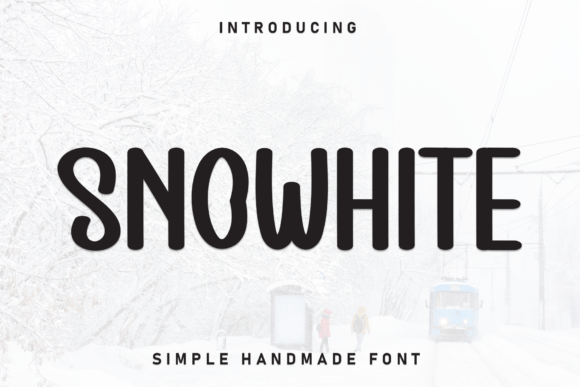
Snowhite Font: Elegant Display Type
Snowhite is a handcrafted display font that brings a touch of warmth and joy to your creative projects. Designed for those who value both beauty and functionality, this font adds a unique flair to handmade labels, printable products, and commercial designs. Whether you're working on invitations, packaging, or digital printables, Snowhite offers a perfect blend of charm and clarity.
Snowhite for Handmade Labels and Product Tags
Snowhite is ideal for creating eye-catching handmade labels and product tags that stand out on shelves and in online shops. Its elegant curves and soft edges make it perfect for candle labels, soap tags, and boutique product names. The font’s readability ensures that even small text remains legible, making it a go-to choice for crafters looking to elevate their branding.
Snowhite for Wedding Invitations and Event Stationery
Snowhite shines when used in wedding invitations and event stationery. Its warm, inviting style adds a sense of elegance and celebration to any design. Whether you're crafting save-the-dates, reception signs, or custom envelopes, this font helps create a cohesive and memorable aesthetic.
Snowhite for Digital Printables and SVG Designs
Digital printable creators will find Snowhite to be a versatile addition to their design toolkit. From printable wall art to planner pages, this font enhances the visual appeal of digital assets while maintaining readability. Its clean lines and expressive character make it suitable for a wide range of applications, including SVG files and downloadable templates.
Snowhite for Seasonal Craft Projects and Holiday Packaging
During the holiday season, Snowhite becomes a valuable asset for seasonal craft projects and festive packaging. Whether you're designing Christmas cards, gift tags, or holiday-themed merchandise, this font adds a sense of cheer and creativity. Its ability to convey warmth makes it an excellent choice for yuletide and winter-themed designs.
Snowhite for Business Branding and Logo Design
Snowhite is a strong choice for business branding and logo design, especially for small shops and handmade businesses. Its unique personality helps establish a brand identity that feels authentic and approachable. Whether you're designing a logo for a boutique or a storefront sign, Snowhite ensures your brand stands out with style and sophistication.
Snowhite for Stickers, Banners, and Wall Art
Snowhite is well-suited for stickers, banners, and wall art where visual appeal is key. Its decorative yet readable style works well for small stickers, large banners, and decorative wall pieces. This font adds a sense of whimsy and charm that can transform any space into a more inviting and artistic environment.
Snowhite for Creative Workflows and Design Efficiency
Snowhite supports a smooth creative workflow by offering multiple styles, alternates, and ligatures that enhance design flexibility. Its multilingual support ensures that it can be used across different languages and regions, making it a practical choice for global creators. By integrating Snowhite into your design process, you can maintain consistency and quality across all your projects.